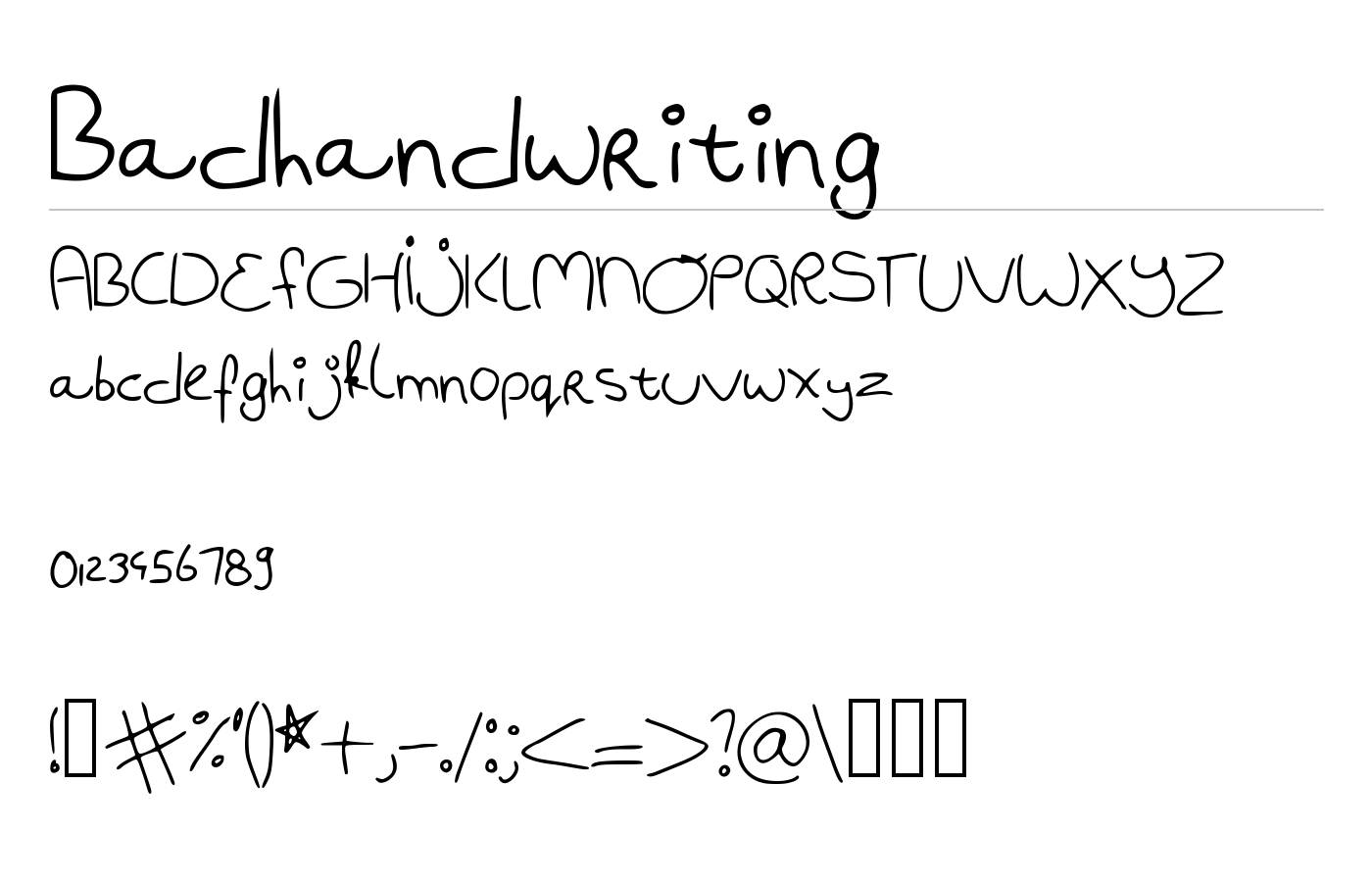
Badhandwriting Font is a playful, casual handwritten sans serif typeface with a light weight and tall, narrow letterforms. Its uneven strokes and quirky character shapes give it an informal, approachable personality, making it ideal for creative projects, personal branding, and fun editorial uses where a relaxed, authentic feel is desired. This font works well for headlines, invitations, and digital content that benefits from a friendly, human touch.
Badhandwriting Font